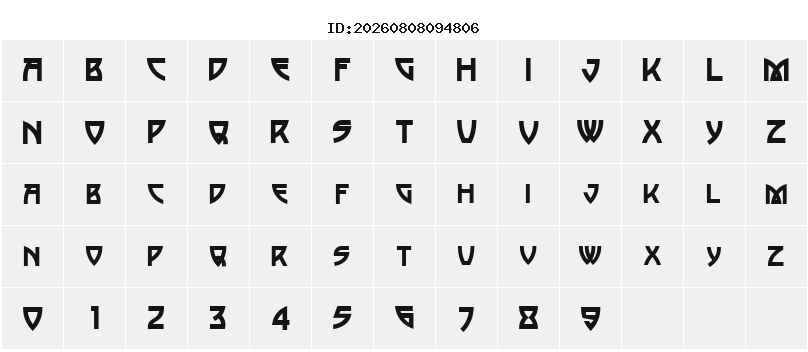
Postmodern One Preview
• Font Name: Postmodern One
• Full Font Name: Postmodern One
• Manufacturer: Gophmann A.L.
About Postmodern One.ttf
Postmodern One.ttf is a modern, elegant sans-serif font designed for ultimate readability and visual harmony. Perfect for branding, headlines, web design, and print materials.